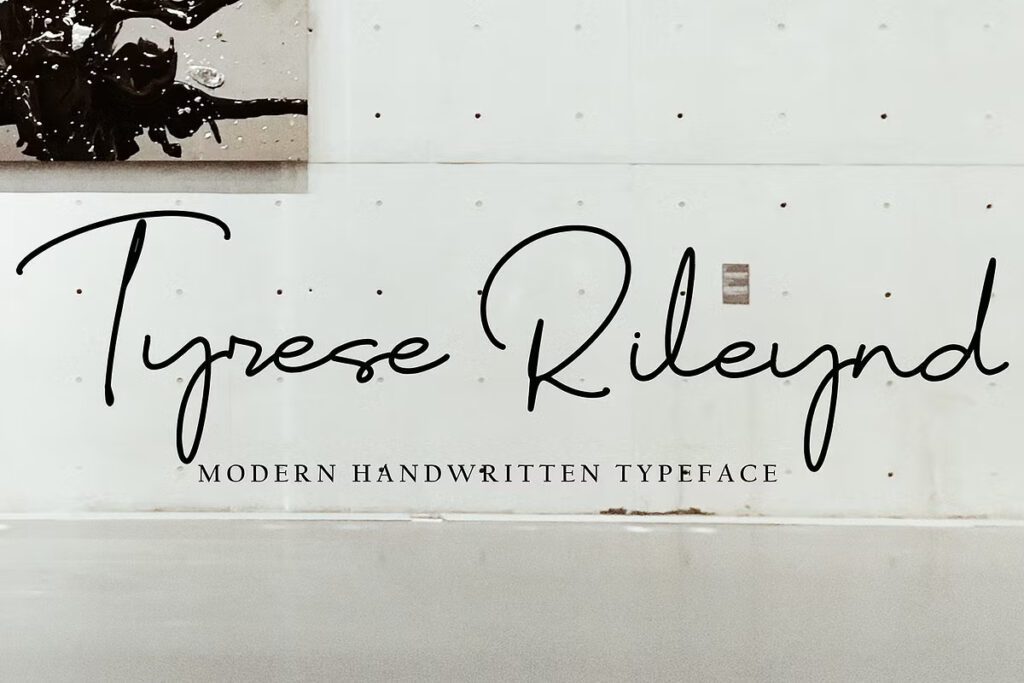
Tyrese Rileynd Font Free Download
How the font is described
Creative Market lists Tyrese Rileynd as “a Handwritten Font by HaKi Studio” in its Fonts > Handwritten category. HaKi Studio’s description presents it “with new style” and suggests quotes, logos, blog headers, posters, invitations and stationery. Earlier listing text called it a “stylish script font” for branding, blog headers, logos and stationery, combining “modern elegance with versatility”.
That is all the official detail available. The listing names no designer, weights, ligatures, alternates or language list, and it had no reviews when we checked. Use the preview box to check the letters you care about, such as capitals, numerals and any accented characters, before you buy.
Where a handwritten script works
- Stationery: letterheads, thank-you cards and wedding suites, with the script used for names.
- Logos for personal brands: photographers, makeup artists and coaches often use a script wordmark.
- Blog and social headers: a title of two or three words over a photo.
- Quote graphics: one key phrase in script, the rest in a sans.
Scripts are hard to read in all capitals or long sentences, and thin strokes can break up when cut in vinyl or printed very small, so test a sample at the final size. Pair Tyrese Rileynd with a quiet sans such as Raleway, or a light serif such as Cormorant for invitation details.
Is Tyrese Rileynd a script font?
Creative Market classifies it as handwritten, and earlier listing text called it a stylish script. Expect connected, handwritten-style lettering meant for headings.